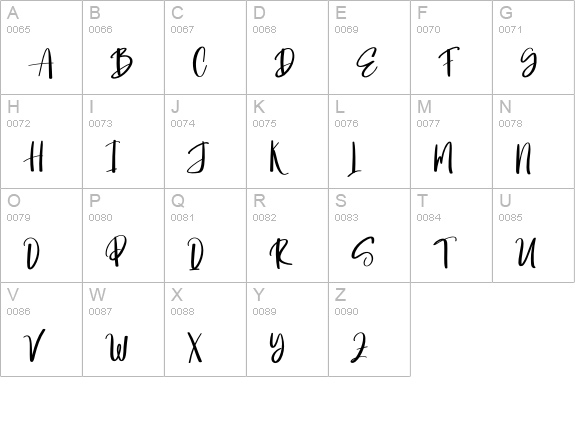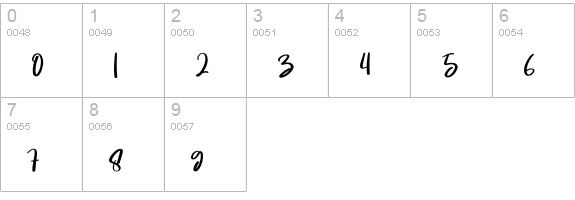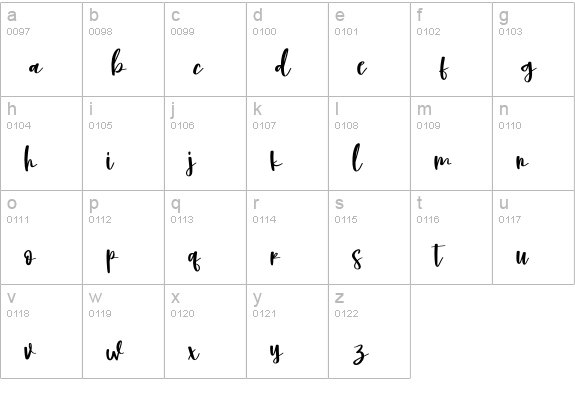
Jim Signature Font Details
Jim Signature is a free for personal use font in the Script > Handwritten category, designed by scratchones. It has been downloaded 21 times and is available for Windows, Mac and Linux.
Introducing Jim Signature font, a stunning and elegant typeface that exudes sophistication and charm. Perfect for adding a touch of class to your designs, this script font features flowing lines and beautiful curves that create a signature-like appearance. Whether you're working on invitations, logos, branding, or any other project that calls for a touch of elegance, Jim Signature font is sure to make a statement.